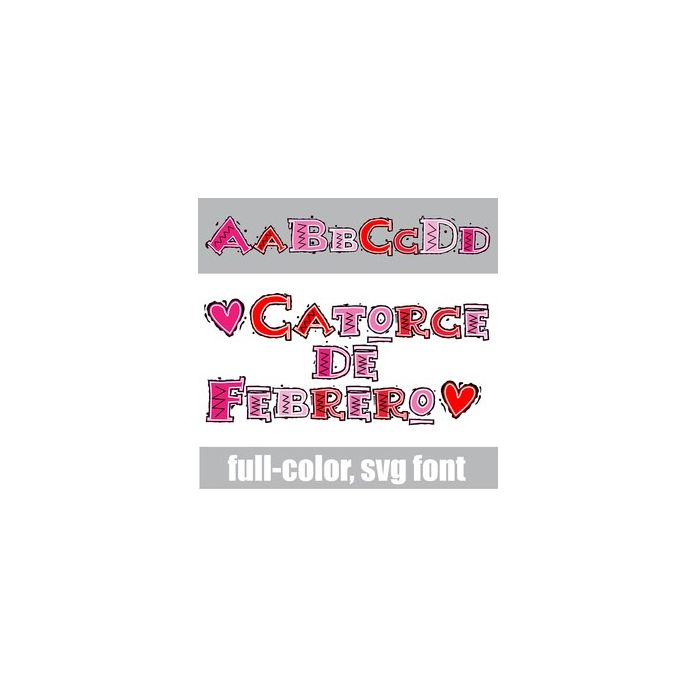
This full-color font features a fiesta-style font in a valentine color palette. To type hearts, use the greater than and less than glyphs. There is an alt case w/ additional colors you can access through your system or Silhouette's glyph map.